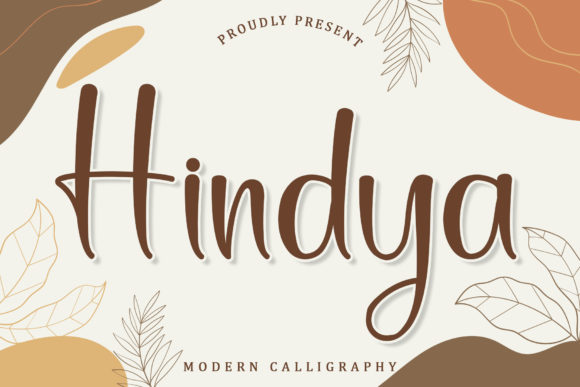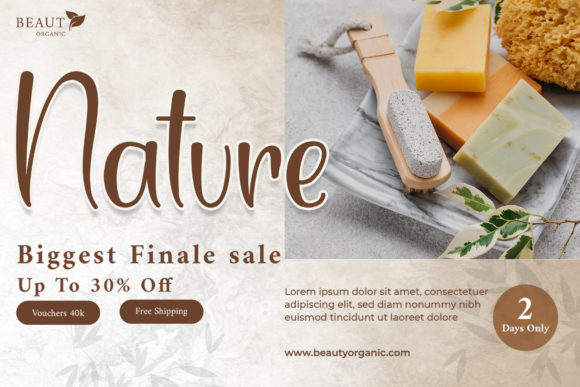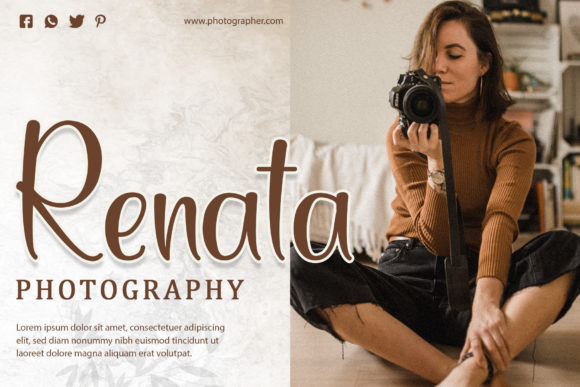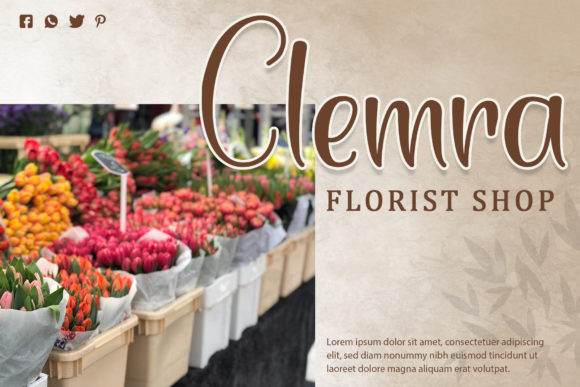
About Hindya Font
Hindya is a beautiful and elegant script font perfect for invitations, wedding invitations, designs, greeting cards, and many more. Add it to your fonts’ library, and start creating amazing works of art with Hindya!